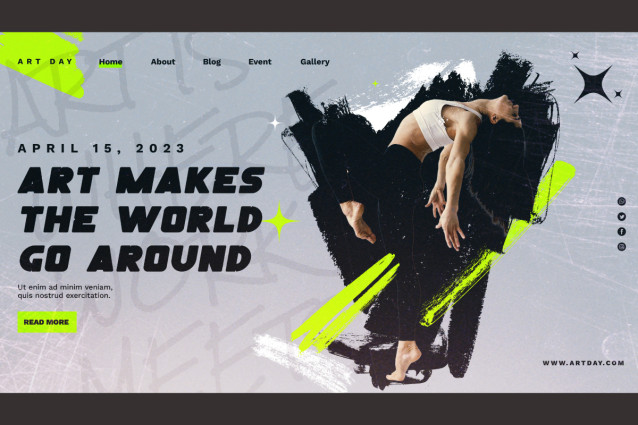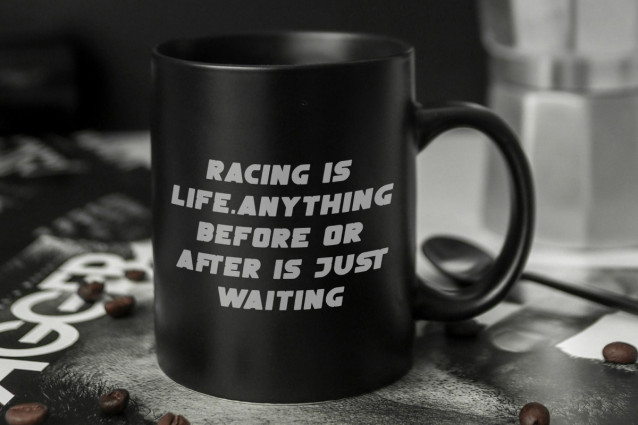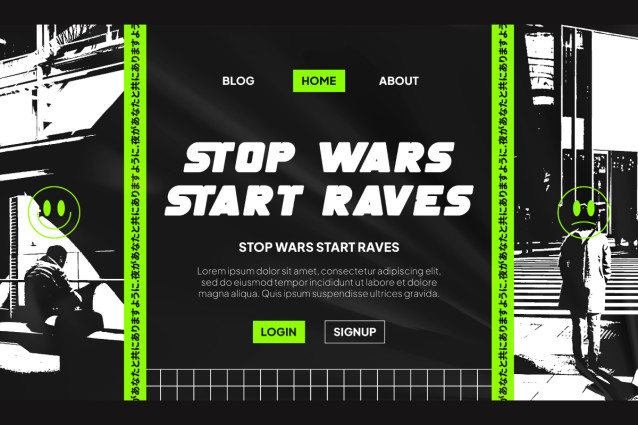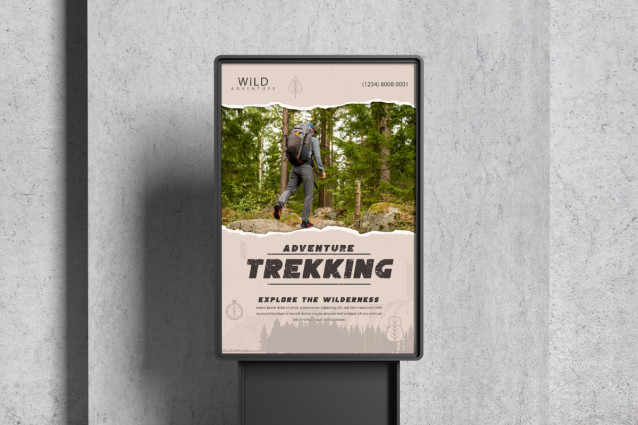
Fast Rally Font
Fast Rally Font is a bold speedy strong racing by RaisProject. This font has bold characters but can still be paired with other types of fonts without reducing its charm. It will be perfect for any designs, such as stationery, custom design, product packaging, quotes, poster, signage, brand image, advertisement, invitation, label, marketing material, website page, and more!